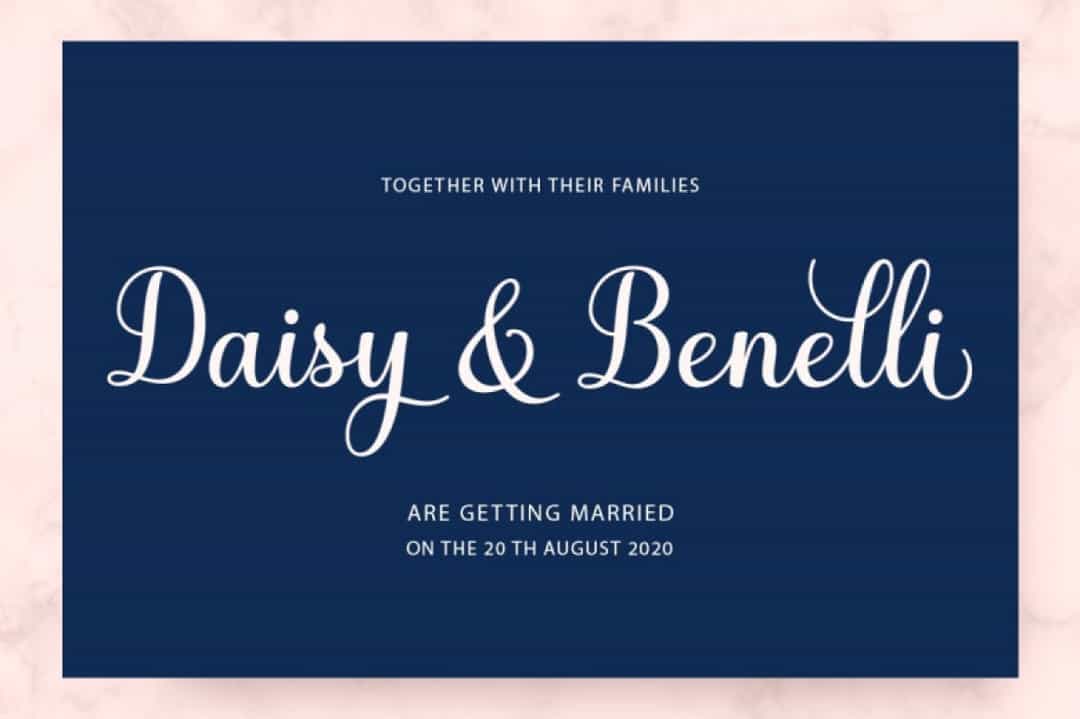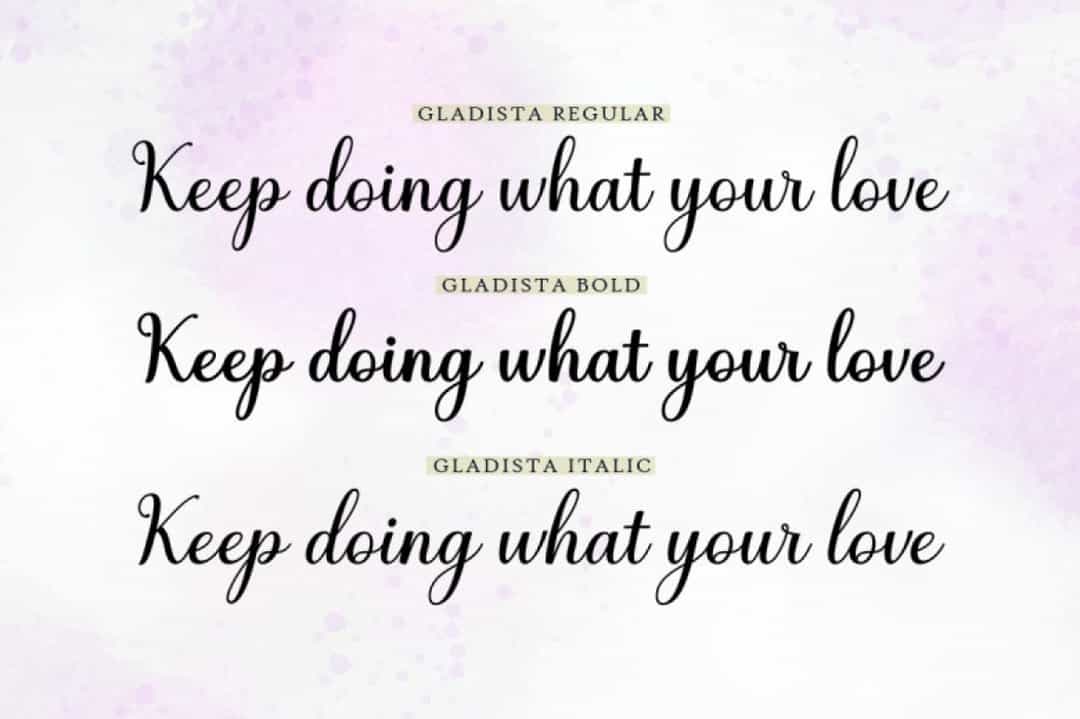
Gladista is an elegant calligraphy font with gorgeous alternate characters that is designed to express style and elegance. A combination of handwriting style and copperplate calligraphy, Gladista exudes style and grace while being extremely usable typeface.